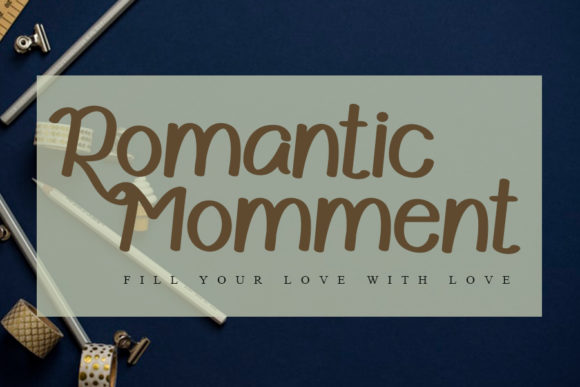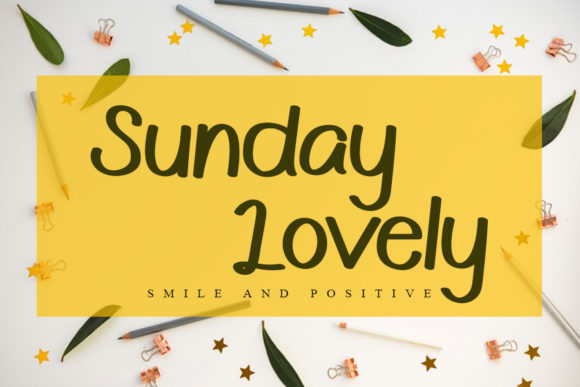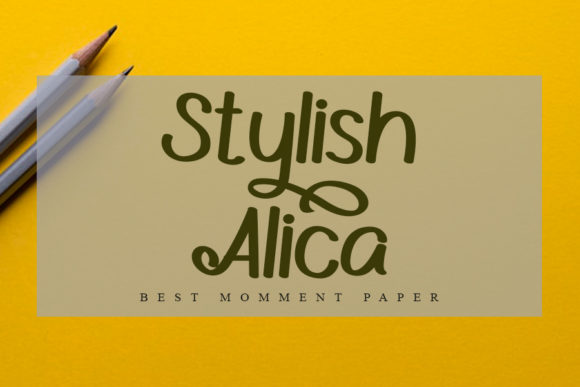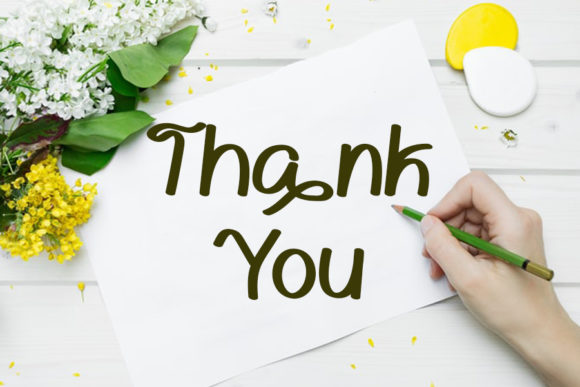
Introduction to Love Kayalla Font
Have you ever stared at a blank page, waiting for inspiration to strike? You’ve got a creative project in mind, but the words just won’t come. That’s where the perfect font can make all the difference. For me, it’s always been the moment when the right font falls into place, and the whole design comes alive. Recently, I discovered the Love Kayalla Font, and I’m hooked.
Love Kayalla Font is more than just a pretty face – it’s a design resource that elevates any project to the next level. With its delicate and flowing handwritten characters, it’s a perfect match for a wide range of designs. Whether you’re working on a branding project, a wedding invitation, or a social media graphic, Love Kayalla Font is sure to bring a touch of elegance and sophistication.
Key Features of Love Kayalla Font
- Love Kayalla Font features a unique blend of modern and classic elements, making it an excellent choice for designers looking to add a touch of sophistication to their work.
- Perfect for use in logos, branding materials, and other design elements where a high-quality, elegant font is required.
Honest Review: Love Kayalla Font
I recently stumbled upon the Love Kayalla Font, and I must say it’s been a game-changer for my creative projects. The moment I laid eyes on it, I knew it was something special.
- ✨ The Love Kayalla Font has a beautiful, elegant design that’s perfect for creating a romantic and whimsical atmosphere in your projects.
However, I did encounter a few limitations while using the Love Kayalla Font.
- ⚠️ The font may not be suitable for all types of projects, particularly those that require a more modern or edgy feel.
Overall, I’m thoroughly impressed with the Love Kayalla Font. Its high-quality design, free download option, and transparent background make it an excellent resource for any designer working on a creative project.
The Love Kayalla Font is suitable for various creative projects, including wedding invitations, birthday cards, and social media graphics. Its elegant and sophisticated design makes it perfect for formal events and announcements.